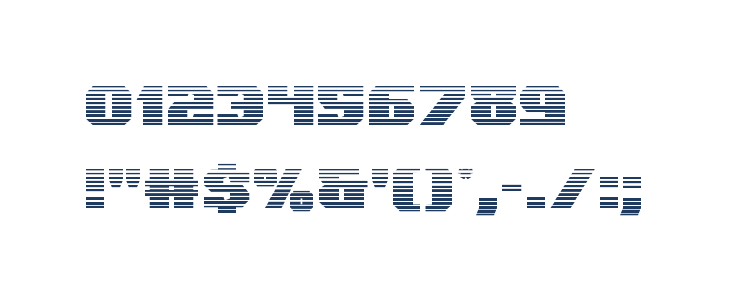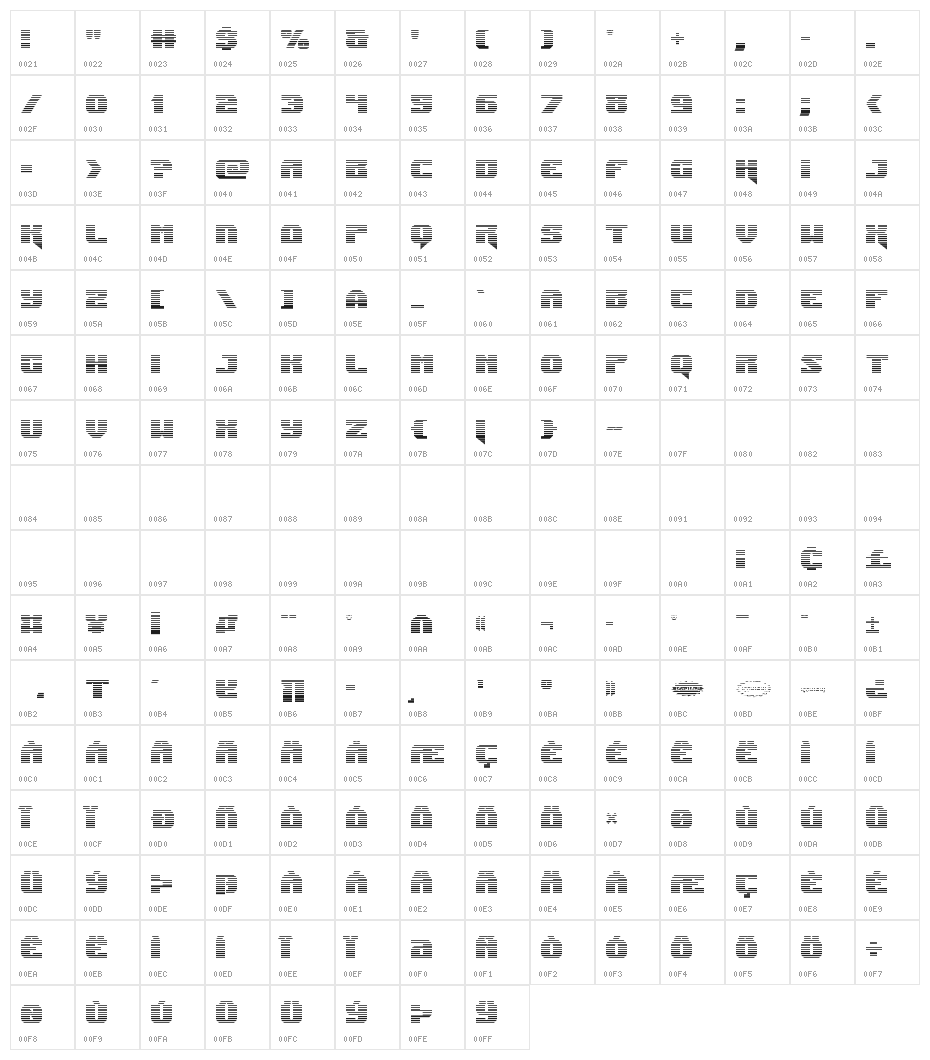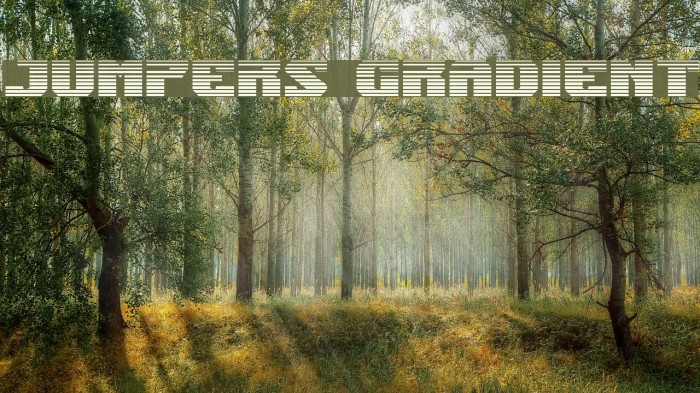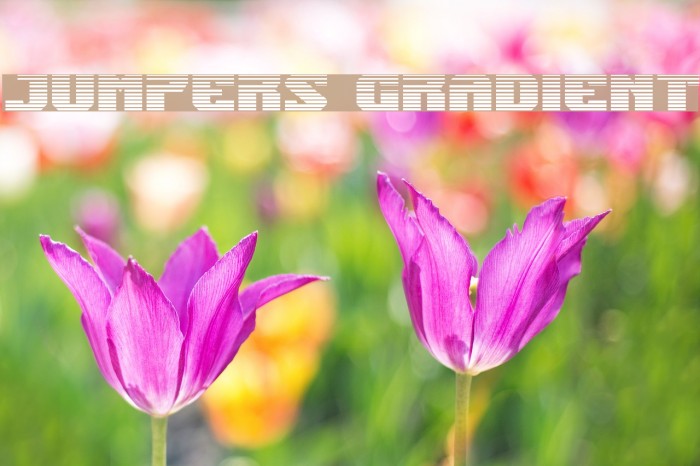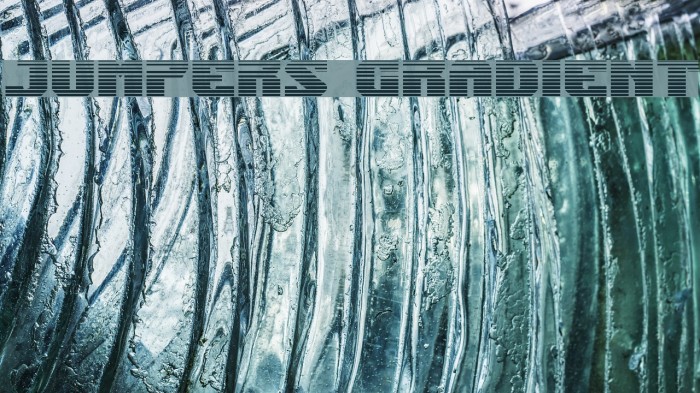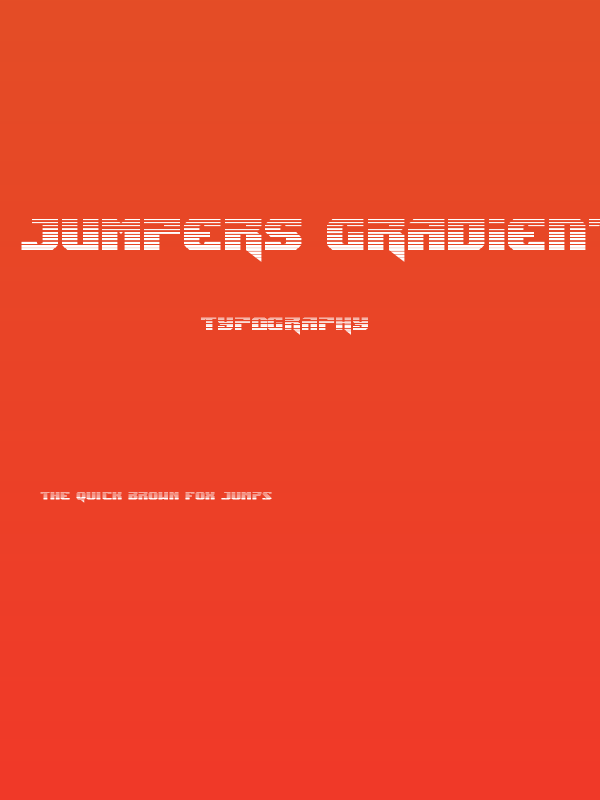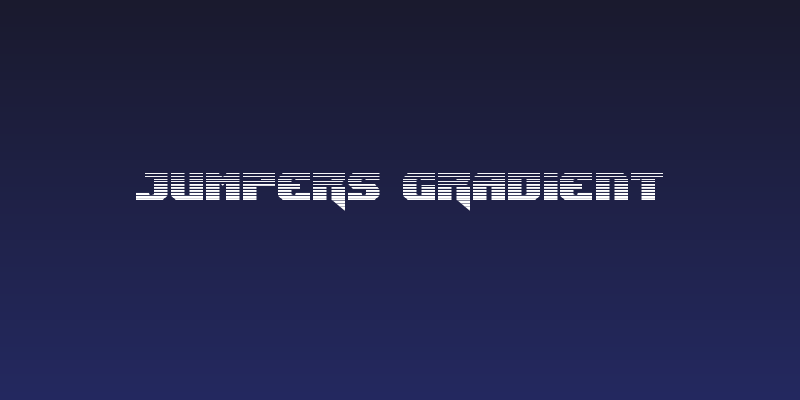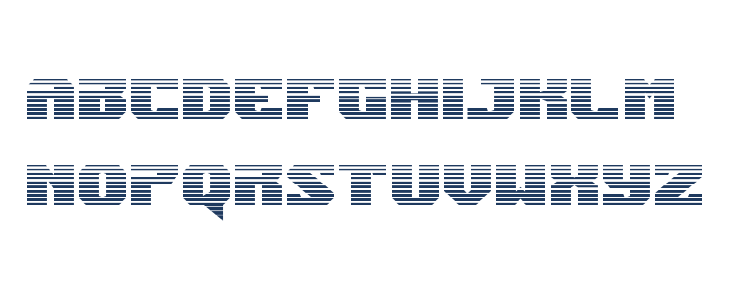
Jumpers Gradient Font
Jumpers Gradient Description
This font features a bold, futuristic design with a distinct striped pattern running horizontally across each character. The geometric shapes and sharp angles give it a modern, tech-inspired look. The uppercase and lowercase letters maintain a consistent style, with the stripes creating a sense of movement and energy. The numbers and special characters are equally bold, ensuring uniformity across all elements. This font is ideal for projects that require a dynamic and eye-catching aesthetic, such as technology branding, sports team logos, or modern digital interfaces.
Proposed ProjectsIdeal for technology branding, sports team logos, and modern digital interfaces.